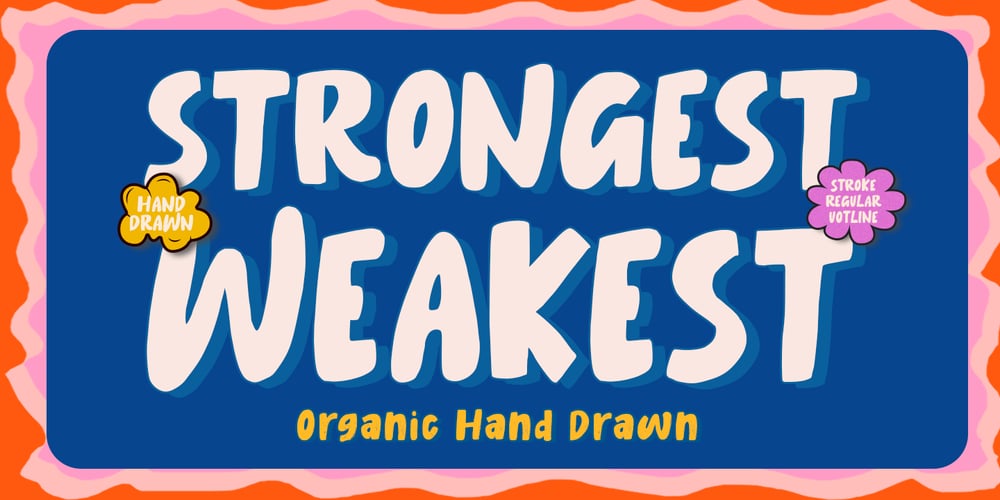
Strongest Weakest Font Family was designed by Naufal Paramata and published by Youngtype. Strongest Weakest contains 3 styles and family package options. Strongest Weakest Regular, Stroke & Outline is a hand brush font made with brushes and ink. This typeface is ideal for use in thick watercolor designs or handwriting styles, such as blog titles, posters, wedding elements, t-shirts, clothing, book covers, business cards, greeting cards, branding, merchandise etc.Contains full set :UppercaseLowercaseLigaturesPunctuationnumbermultilingual support.Thank you!